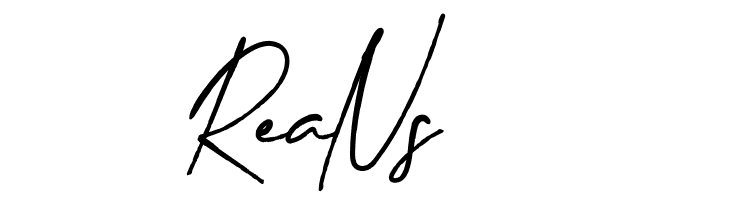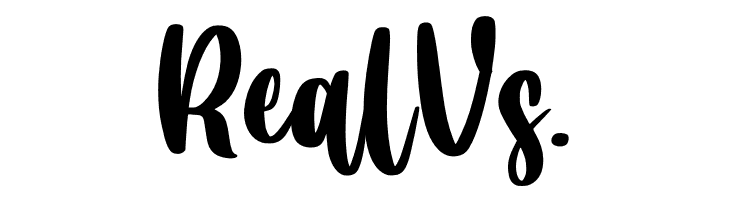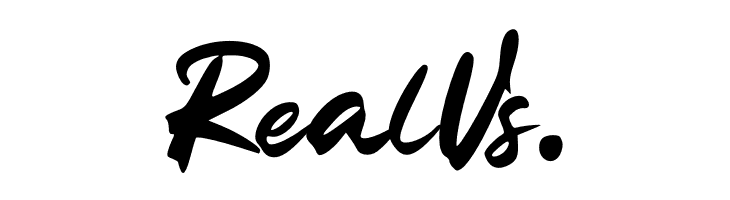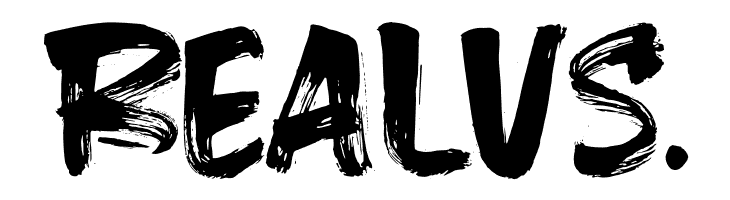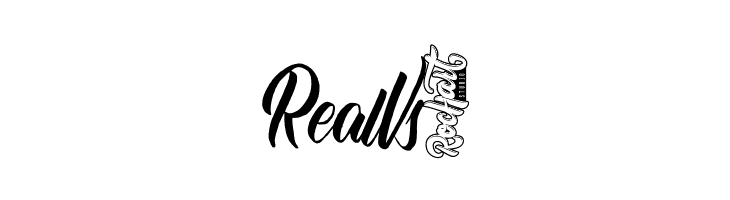
A dynamic script font with flowing, cursive letterforms and artistic flair.
A bold, brushstroke font with a dynamic and textured style.
An elegant script font with intricate swirls and loops, perfect for refined designs.
A dynamic and expressive script font with fluid, cursive letterforms.
A bold, expressive script font with a hand-painted, artistic style.
A lively, handwritten font with fluid, elegant characters and a personal touch.
A dynamic brush script font with bold, expressive strokes.
A bold, expressive script font with fluid strokes and dynamic flair.
A dynamic handwritten font with fluid, expressive strokes.
A bold, flowing script font with expressive, interconnected strokes.